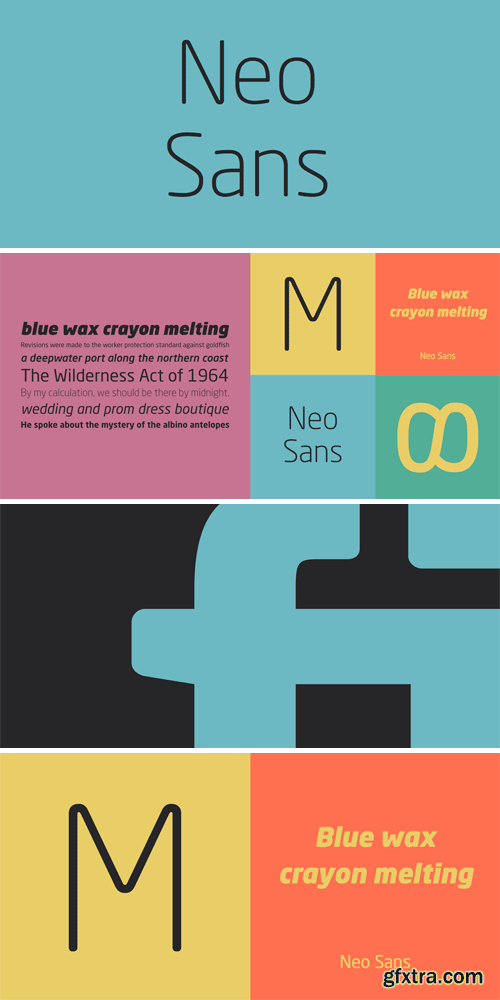
Neo Sans began as an intriguing assignment from a branding agency. The agency’s client wanted an “ultra modern” type family that was "futuristic without being gimmicky or ephemeral.” When a bureaucratic decision cancelled the project, Monotype staff designer Sebastian Lester decided to finish the design on his own. “I was left with a sketchbook full of ideas,” he said, “and thought it would be a shame not to see what came of them.” Lester decided that the principal ingredient of an “ultra modern” typeface was simplicity of character structure: a carefully drawn, monoline form, open letter shapes and smooth, strong curves. By further amplifying these qualities, he crossed the line from modern to futuristic. Two highly functional and versatile typefaces emerged. These are Neo Sans and Neo Tech, designs Lester describes as “legible without being neutral, nuanced without being fussy, and expressive without being distracting.” Both the Neo Sans and the more minimalist Neo Tech families are available in six weights, ranging from Light to Ultra, with companion italics.